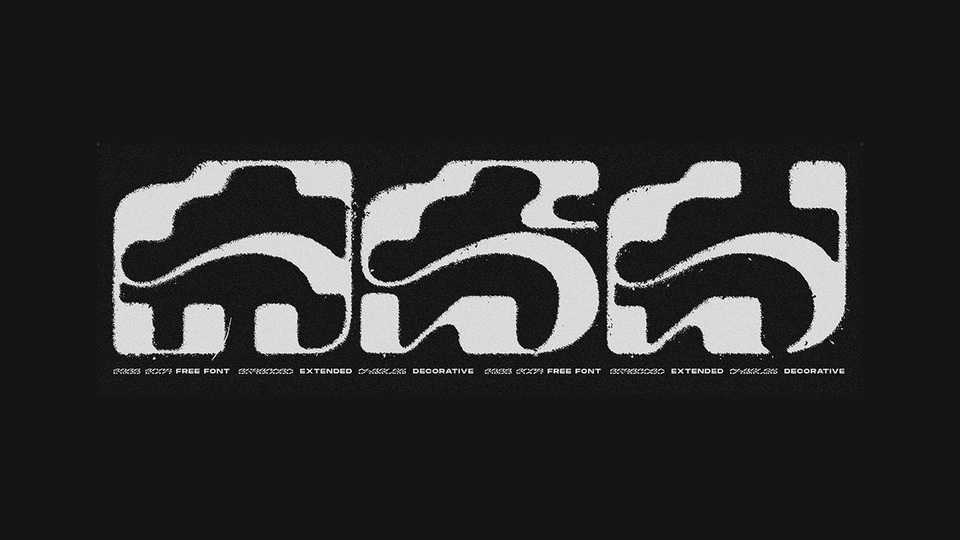
Download ASH font, a monospaced extended display typeface designed for cool 3d treatments, reflections, and esoteric headers. ASH font is also great for impactful headlines, cutting edge logos, posters and album artworks.